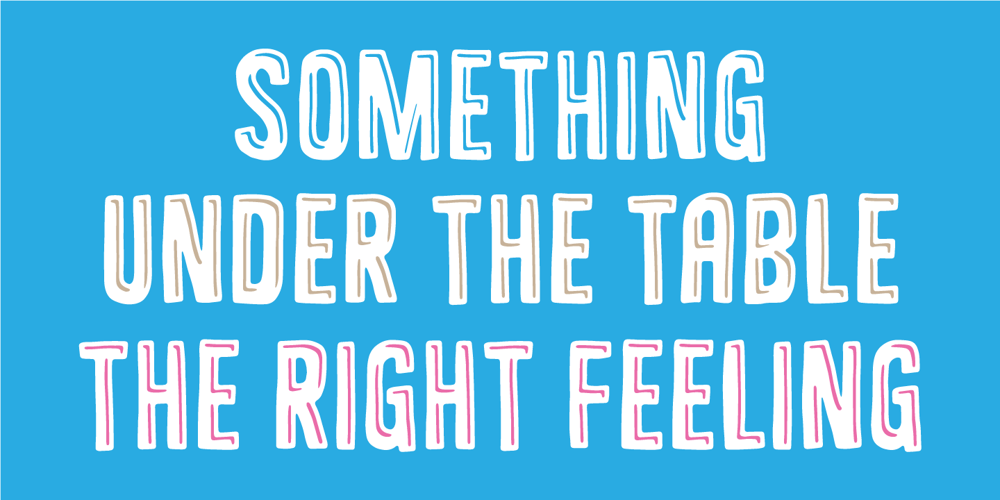
Smart Cookie Font Family was designed by Jakob Fischer and published by PizzaDude.dk. Smart Cookie contains 3 styles and family package options. Smart Cookie is a happy and handmade font, ideal for packaging, posters or books (especially children’s books!) It’s highly legible and comes int 3 versions: Regular, Shine and Layer. Mix the Regular and Shine layer (using different colours) to make a cool shiny effect, or use the Shine version where the colours rely on the fore- and background colours…also a nice way of making your text stand out!